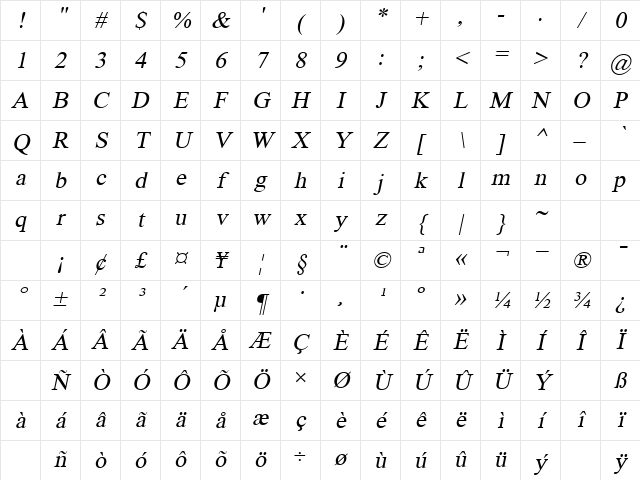
TimesNueve is a composed and adaptable typeface that performs quietly and consistently across a wide range of design contexts. The slanted form adds forward momentum and visual energy.
Pro Tip: Use TimesNueve for emphasis, pull quotes, and subheadings where its slanted energy can add rhythm to the layout.